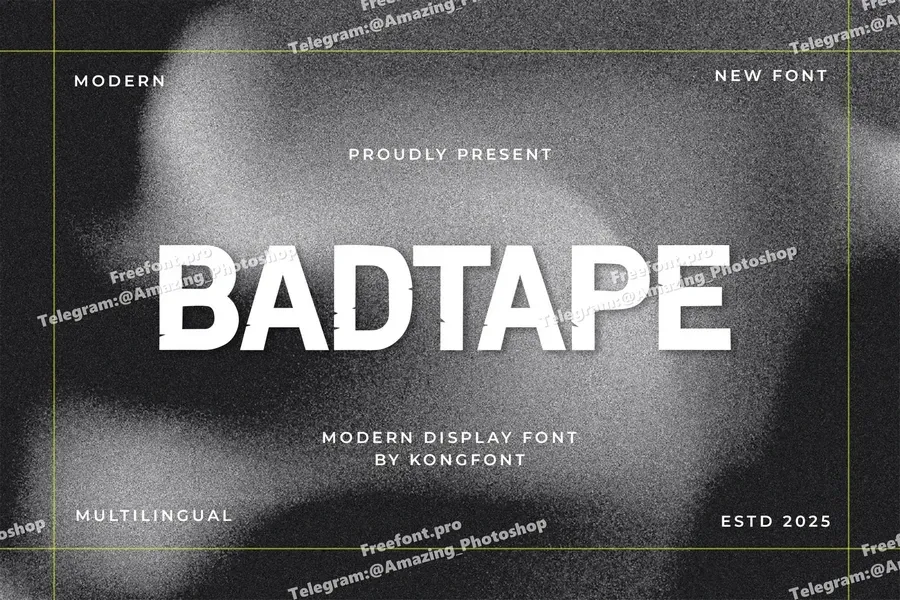
Badtape – Modern Display Font
Badtape is a modern display font inspired by the gritty, DIY aesthetic of ripped tape, underground zines, and analog distortion. With its jagged edges, uneven lines, and bold presence, Badtape brings rebellious energy and raw texture to your creative work.
Perfect for music posters, album covers, rebellious quotes, and experimental editorials, Badtape gives your typography a torn, imperfect look that feels authentically handmade. It’s ideal for designs that reject the clean and polished in favor of something louder, wilder, and more expressive.
Equipped with uppercase and lowercase letters, numerals, punctuation, and multilingual support, Badtape is your go-to font for chaotic creativity and bold, urban attitude.